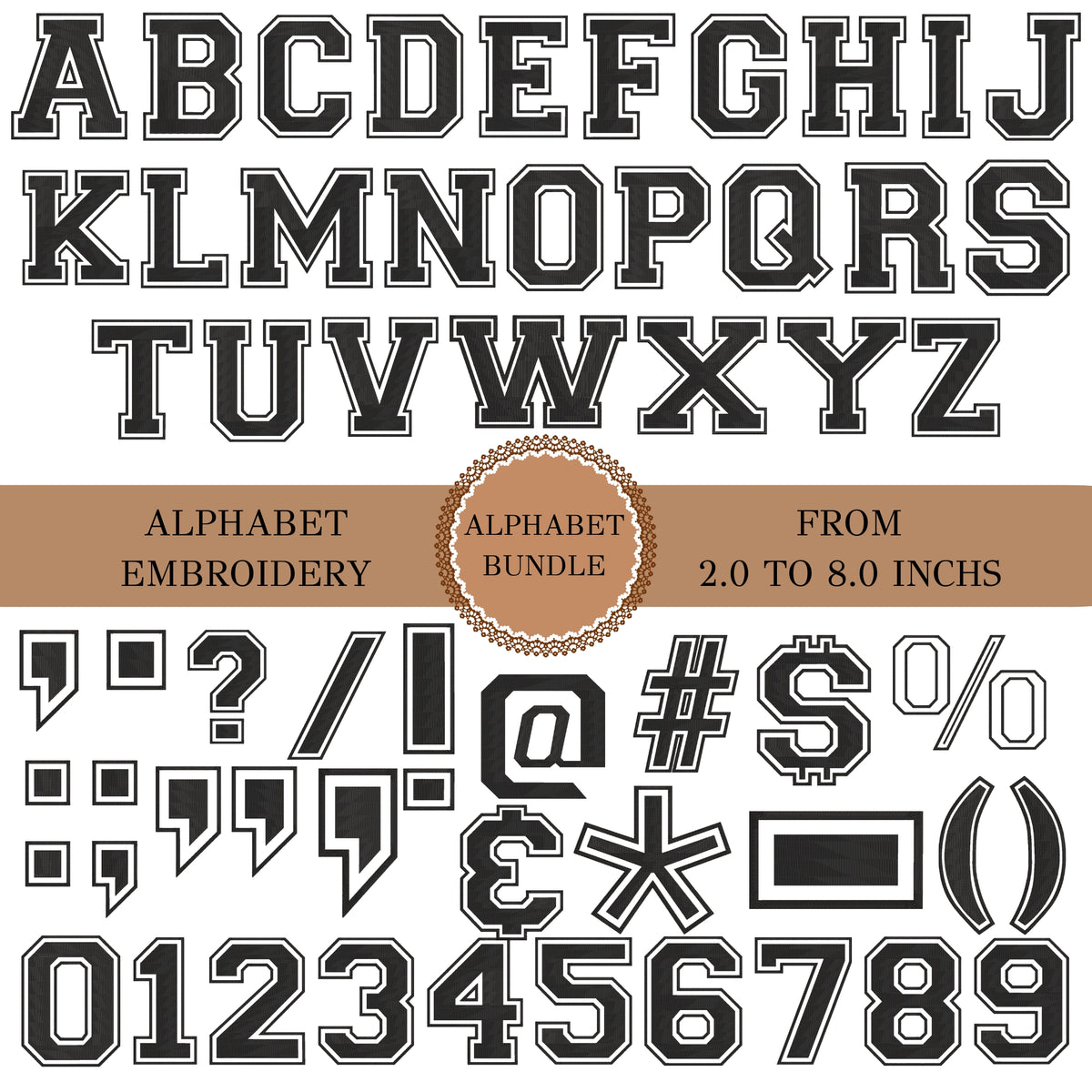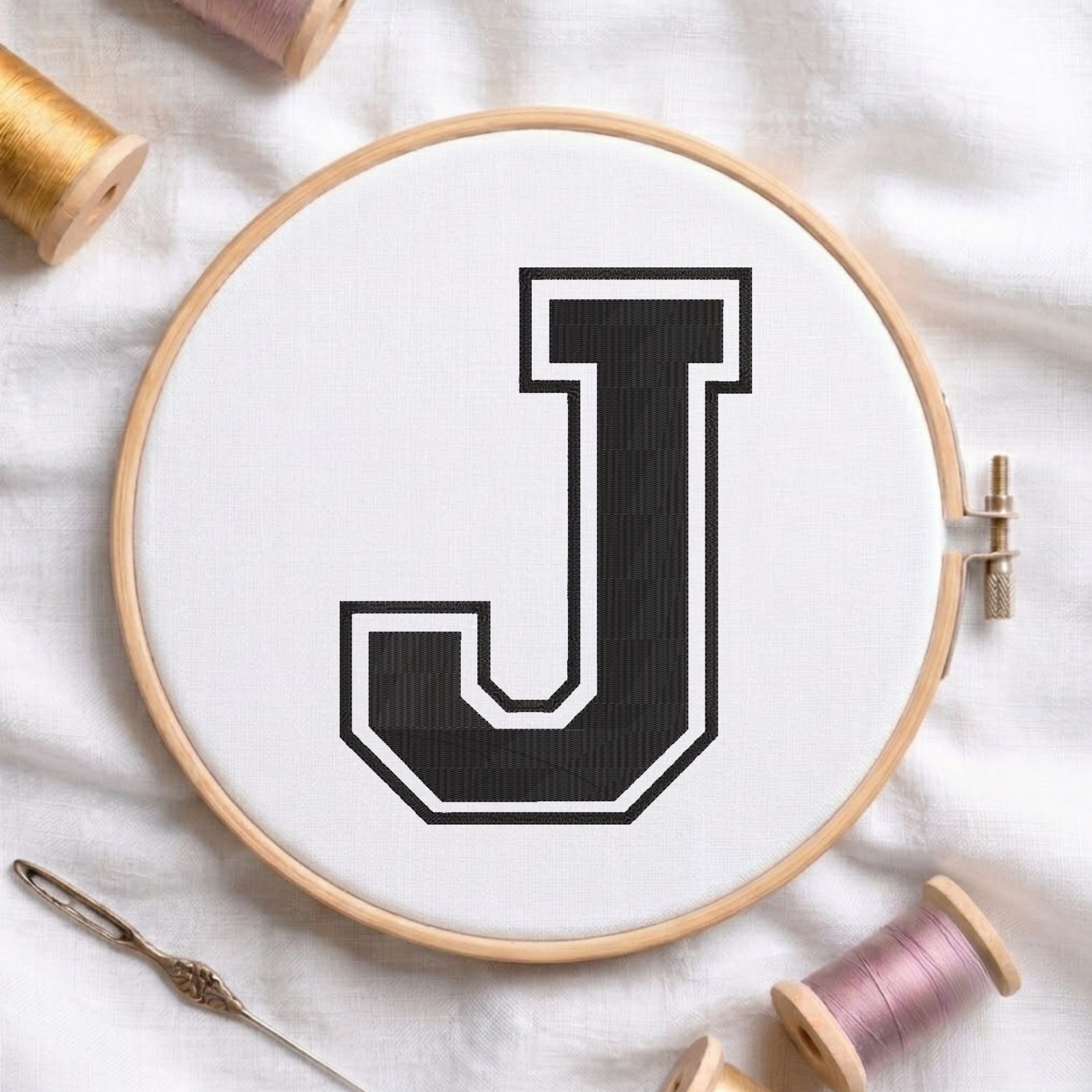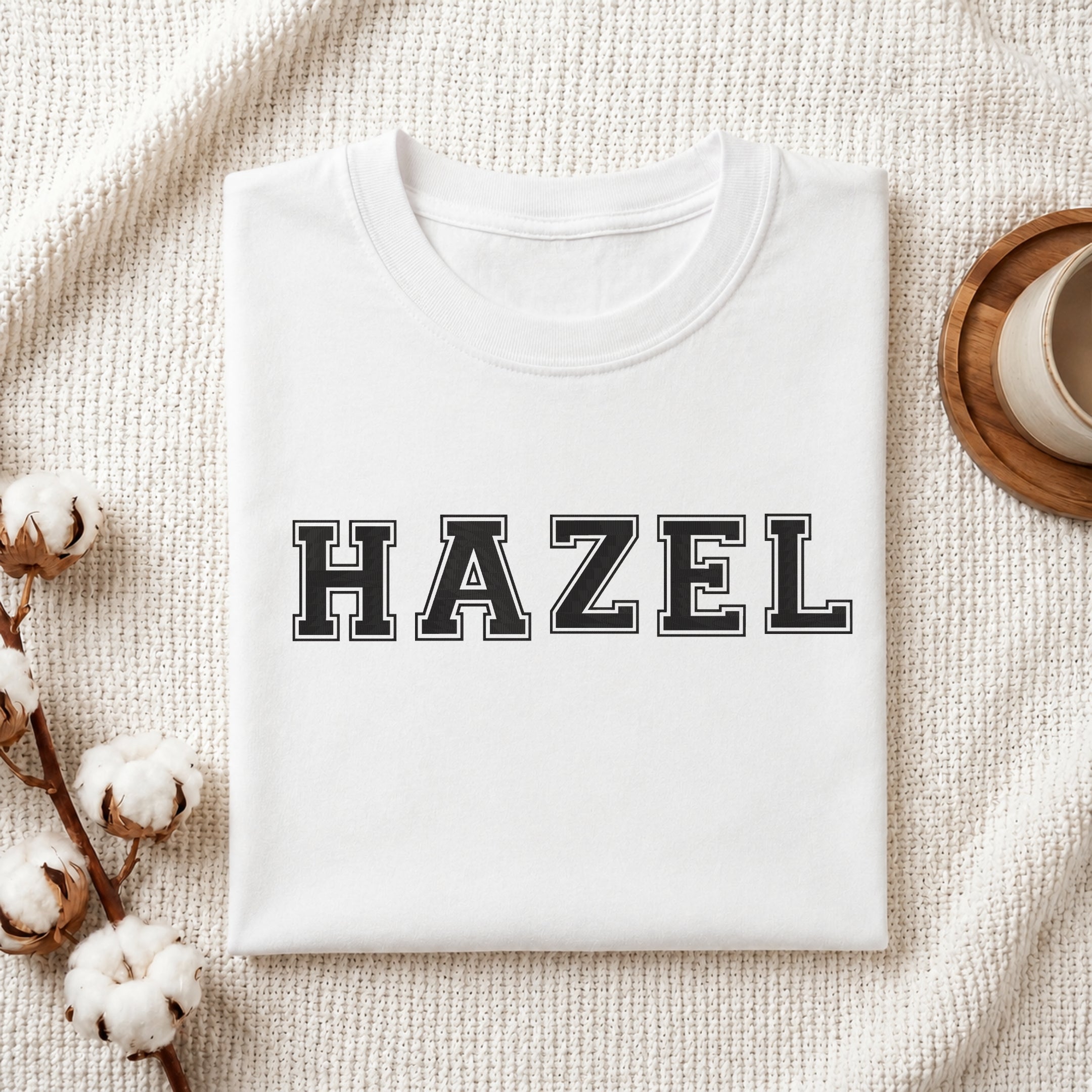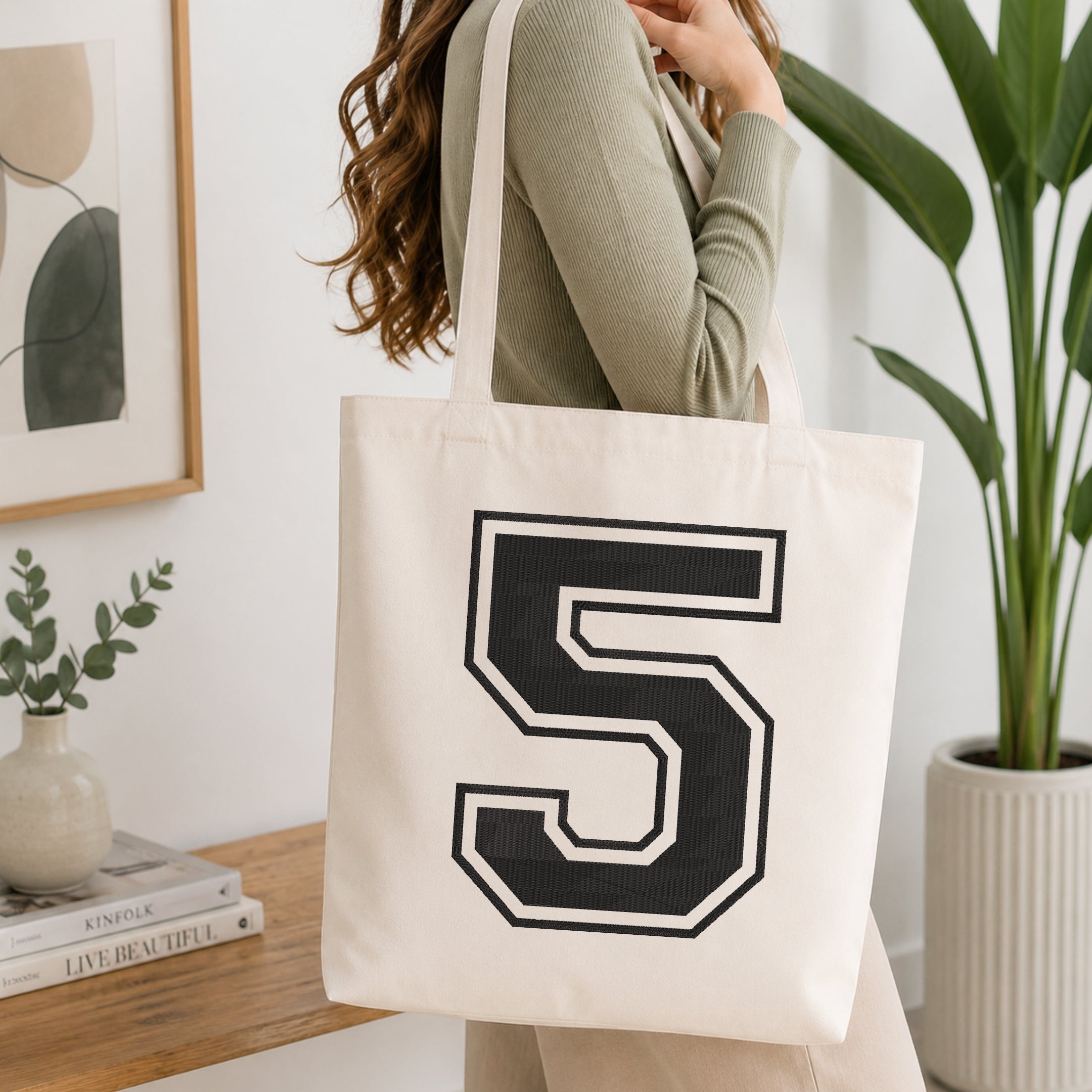
Alphabet Embroidery Font Bundle Machine Embroidery Design ED 373
What is this product and what is the design theme?
This is a digital machine embroidery design bundle featuring a curated collection of themed festive patterns. Each design showcases vibrant red ribbon bows entwined with botanical floral vines, tiny blue and red blossoms, green leaves, and stars, crafted specifically to bring a cohesive touch of holiday charm, elegance, and intricate craftsmanship to your custom embroidery projects.
Where can I use these embroidery designs?
This vibrant, seasonal bundle is perfect for personalizing Christmas sweatshirts, holiday stockings, festive throw pillows, canvas tote bags, and unique gifts for the winter season.